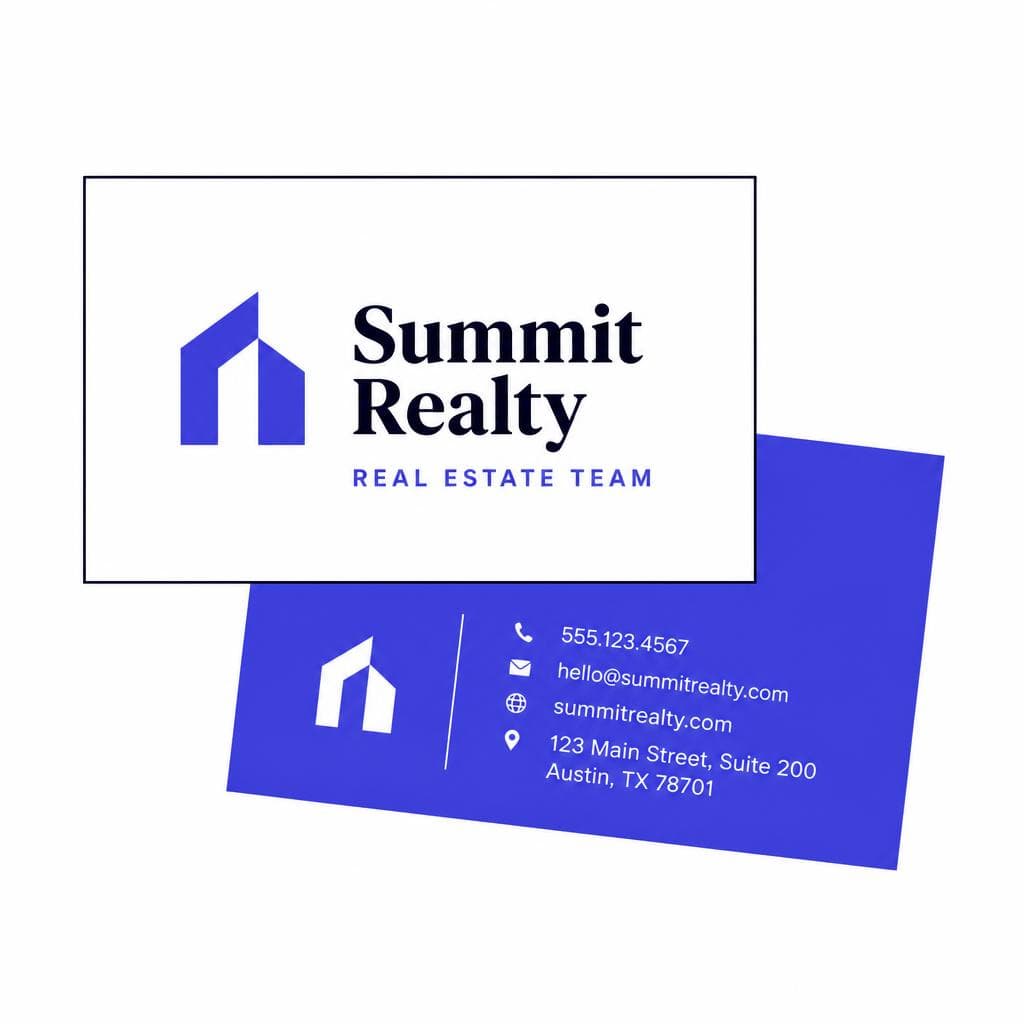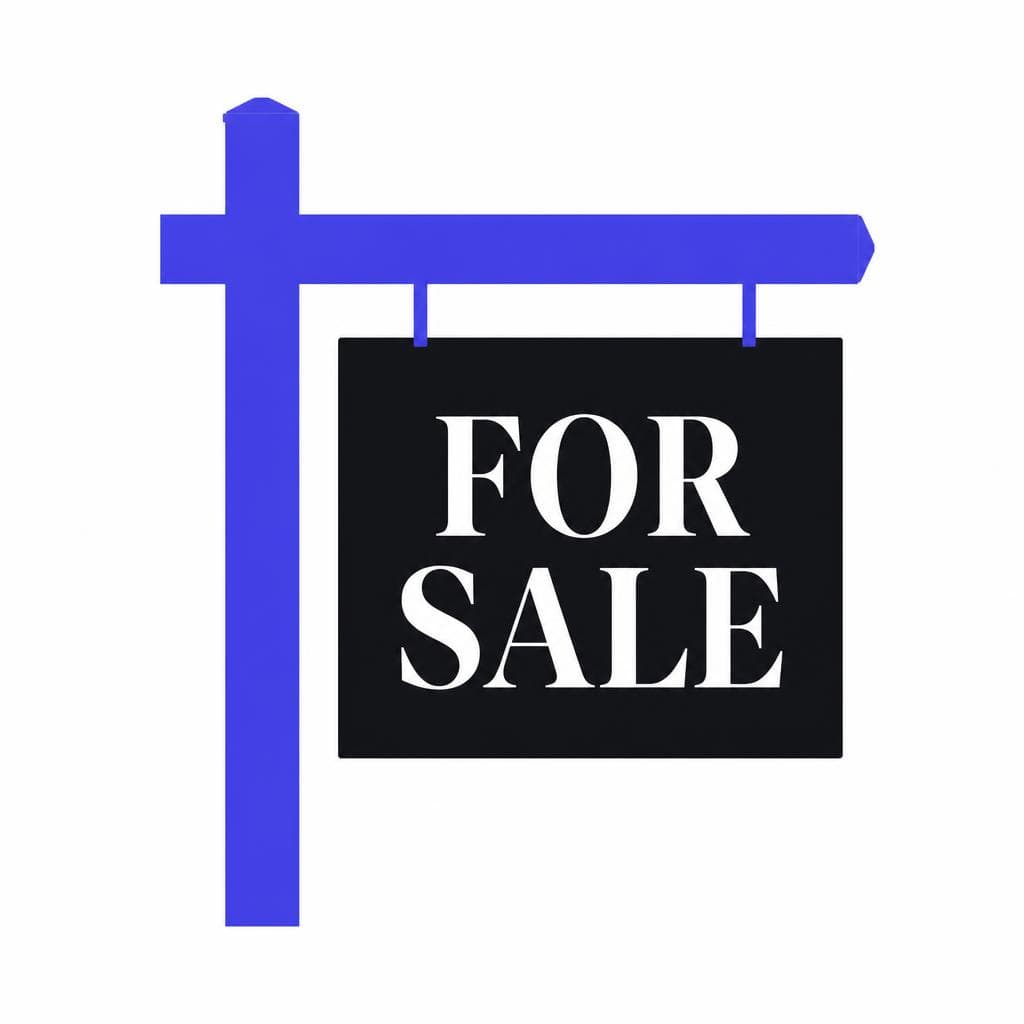
Real estate buyers form an opinion about an agent, brokerage, developer, or property brand long before they schedule a viewing. They notice the listing photography, the logo, the sign outside a building, and the way details are presented on a brochure or website. Typography sits underneath all of those touchpoints. It quietly tells people whether your business feels established, modern, premium, local, efficient, warm, or trustworthy.
That is why choosing a font for real estate is not a minor design decision. A typeface can make a modest first-time-buyer campaign feel reassuring and accessible, or help a luxury waterfront development signal restraint and exclusivity. It can also create friction: overly decorative lettering can look dated, ultra-thin fonts can disappear on yard signs, and generic typography can make an otherwise capable brand feel interchangeable.
The strongest real estate branding font strategy starts with positioning rather than personal taste. Before selecting type, decide what you want clients to believe about you at first glance. Are you the neighborhood specialist who makes complex moves feel simple? The high-end advisor with meticulous standards? The commercial team that understands numbers and market cycles? Your realtor typography should turn that answer into a consistent visual experience across every place prospects meet your brand.
What Real Estate Typography Communicates Before a Buyer Reads
Real estate typography works as a set of visual cues. Readers may not consciously identify the font, but they interpret its personality almost immediately. This matters especially in a category where decisions carry financial and emotional weight. A buyer wants confidence that an agent is organized, a developer is credible, and a property is presented honestly.
A traditional serif typeface, for example, often suggests experience, permanence, and editorial sophistication. It can suit heritage homes, luxury listings, established brokerages, and investment-focused brands. A clean sans serif tends to communicate clarity, practicality, and contemporary service. It often fits urban rentals, new developments, tech-enabled brokerages, and agents serving younger or time-constrained clients.
Beyond the broad serif-versus-sans distinction, look at individual details. Wide letterforms and generous spacing can feel calm, premium, and architectural. Condensed capitals can imply efficiency and city energy, but they can become hard to read at small sizes. Rounded forms can appear friendly and approachable, while sharp geometric shapes can feel more modern or technical. A high-contrast display font may bring drama to a luxury campaign, yet it needs a simpler partner for property specifications, addresses, and calls to action.
Think about the emotional promise behind your business. A family-focused suburban agent might use a warm, highly legible sans serif for everyday communications and a refined serif for headlines. A boutique commercial firm might use a confident neo-grotesk sans with disciplined spacing to emphasize precision. A coastal developer could combine a graceful serif with open, understated sans-serif body text to evoke space and calm without becoming cliché.
The key is alignment. Your real estate typography should reinforce the experience clients actually receive. If your materials promise effortless white-glove service but your listing sheets are crowded, inconsistent, and difficult to scan, typography cannot solve the mismatch. But when the type system, writing style, photography, and client experience all point in the same direction, the brand becomes easier to trust and remember.
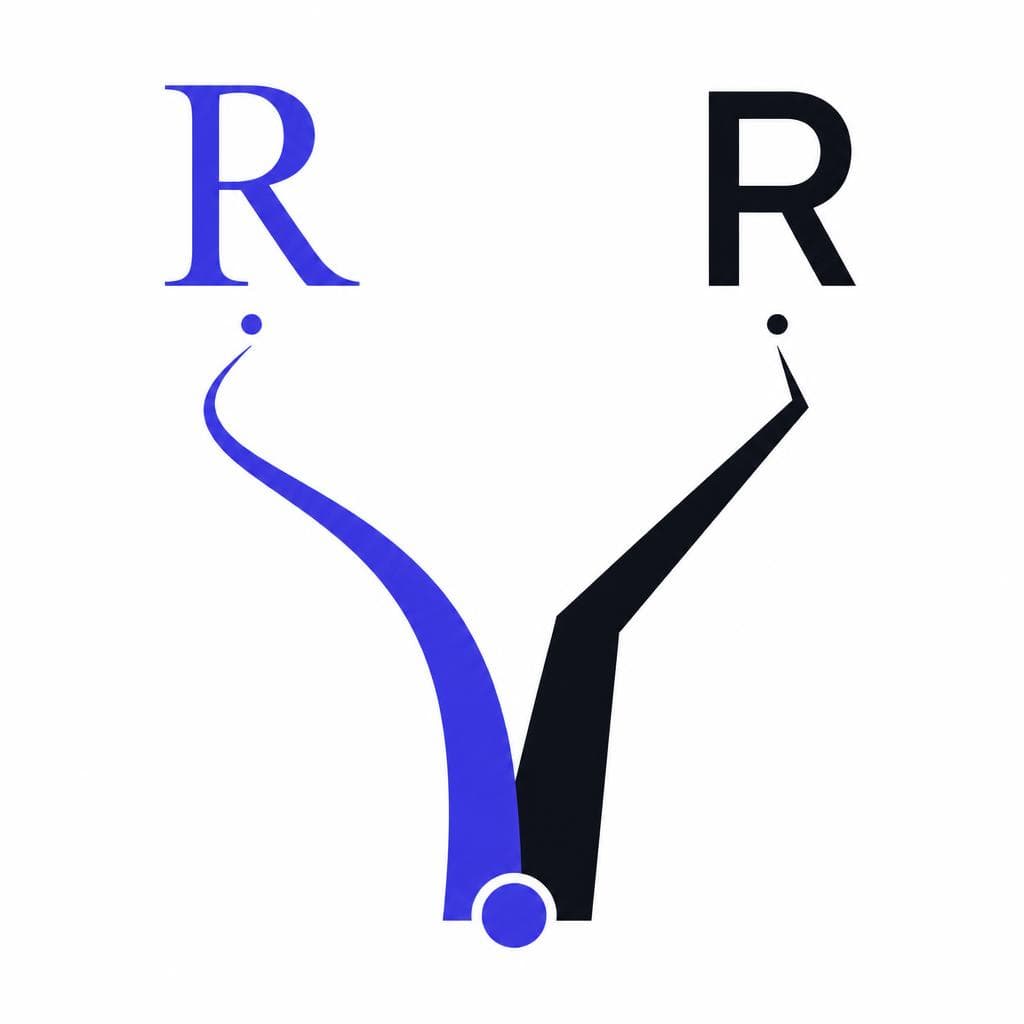
Serif vs. Sans Serif for Property Brands
There is no universal best real estate logo font. The better question is which font category best serves your audience, market position, and practical needs. In many effective property brand font systems, the answer is not one category alone but a deliberate pairing of a display face and a workhorse text face.
### When a serif is the right choice
Serifs can give a real estate brand authority and a sense of longevity. They are especially useful when the story involves craftsmanship, architecture, history, investment value, or elevated service. For instance, a brokerage specializing in restored Victorian homes might use a high-quality serif in its wordmark and listing headlines. The font can reflect the character buyers expect from the homes themselves.
However, avoid selecting a serif only because it looks expensive. Very fine strokes may fail on small print pieces, embroidered apparel, social media profile images, or outdoor signage viewed at a distance. Test the font in the actual sizes and conditions where it will live. If the name on a sign cannot be read from the street, the font is not doing its job.
### When a sans serif is the right choice
Sans-serif fonts are often the safest foundation for real estate marketing font systems because they are clean, flexible, and highly readable. They work well in listing descriptions, neighborhood guides, web interfaces, email campaigns, and presentation decks. A well-chosen sans serif can feel polished without appearing cold.